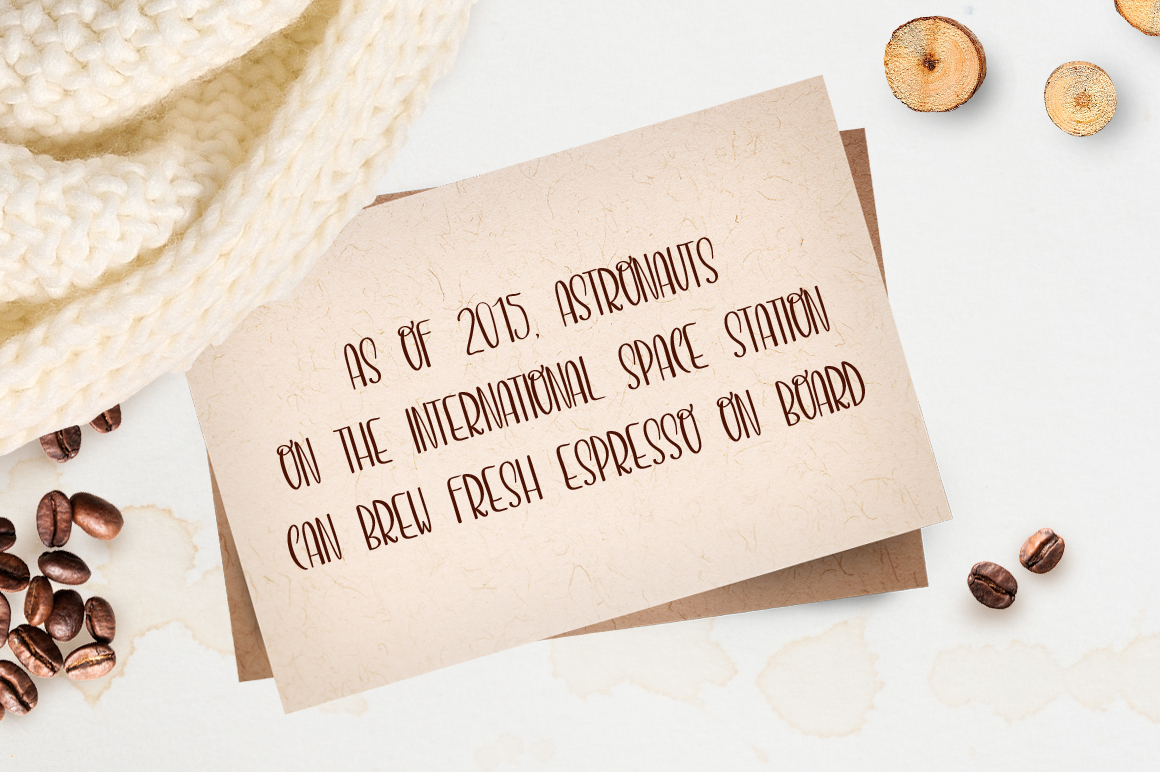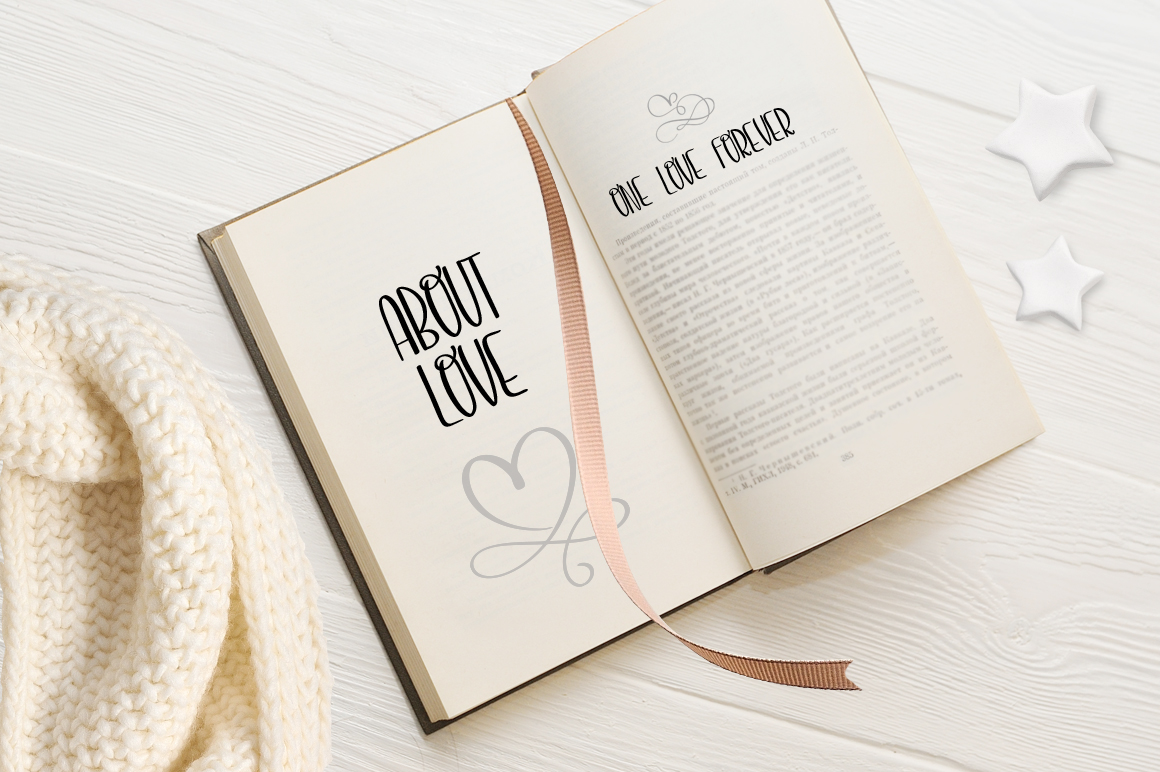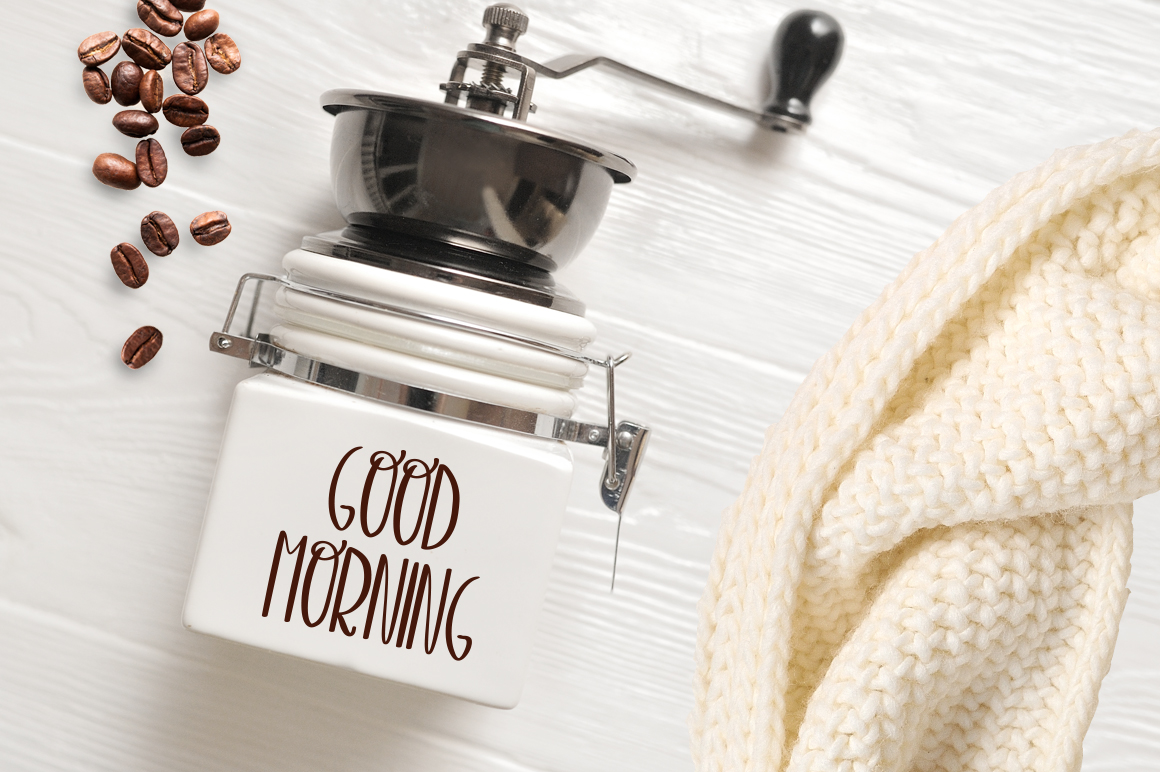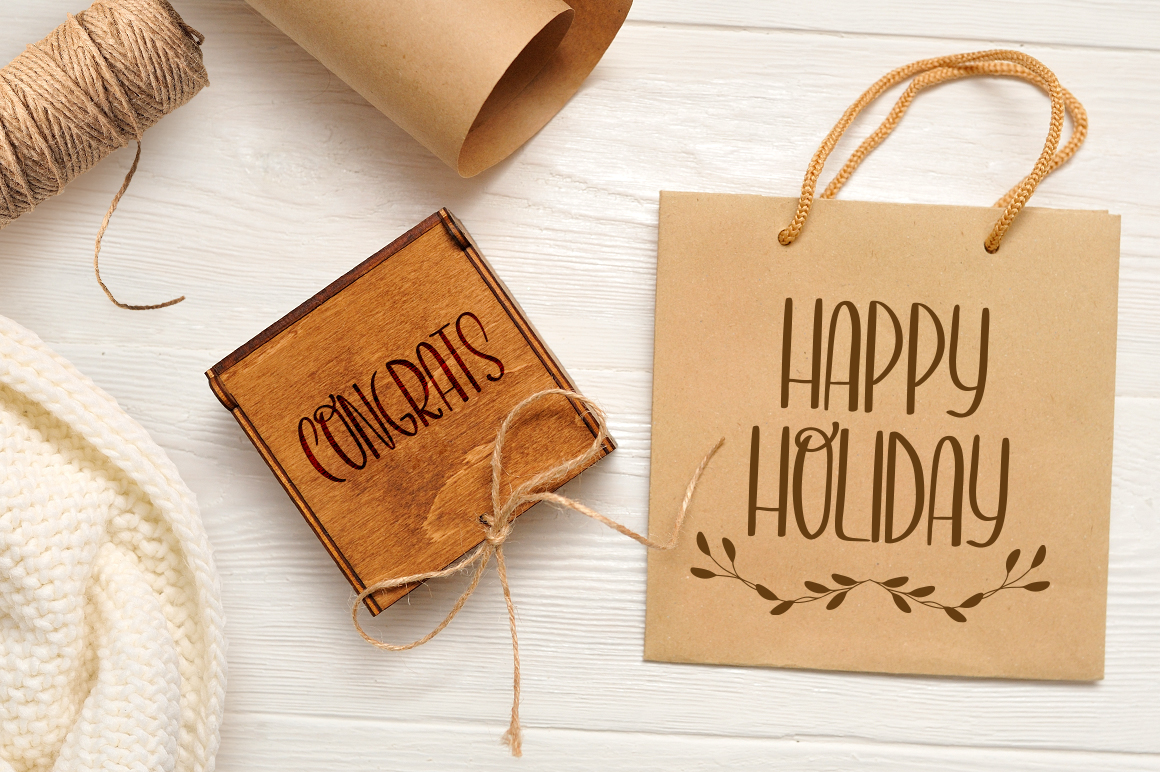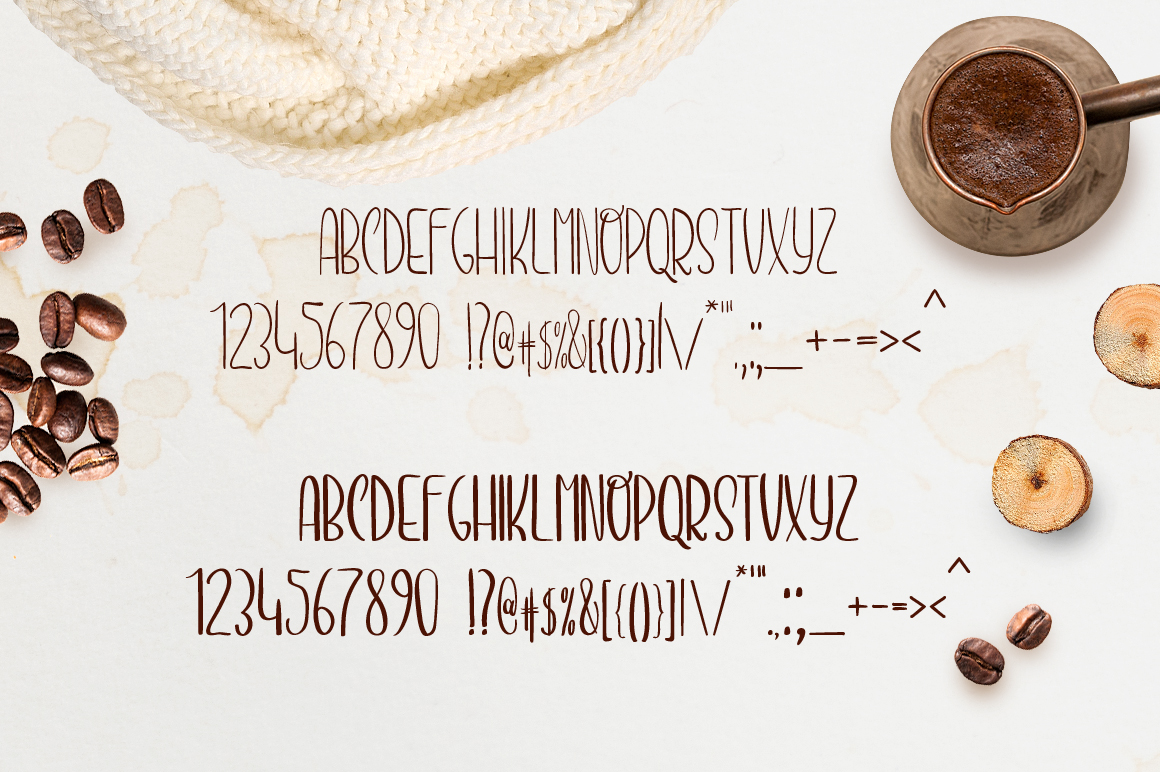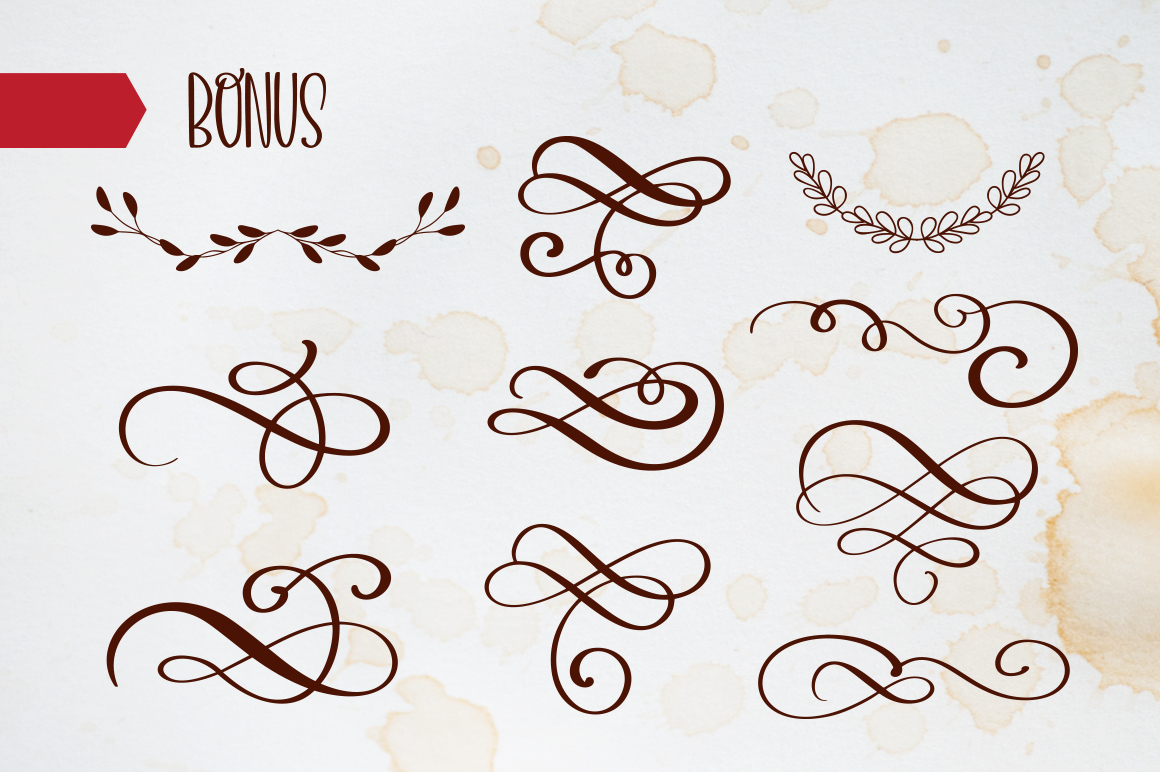
Espresso Font
About Espresso Font
Espresso celebrates holiday, fun, and lightness of spirit; a dedication to the archetypical traveler, this is the font when you want to evoke enjoyment of the simple things in life. Handwritten and simple, Espresso is gorgeous in its restraint and character.